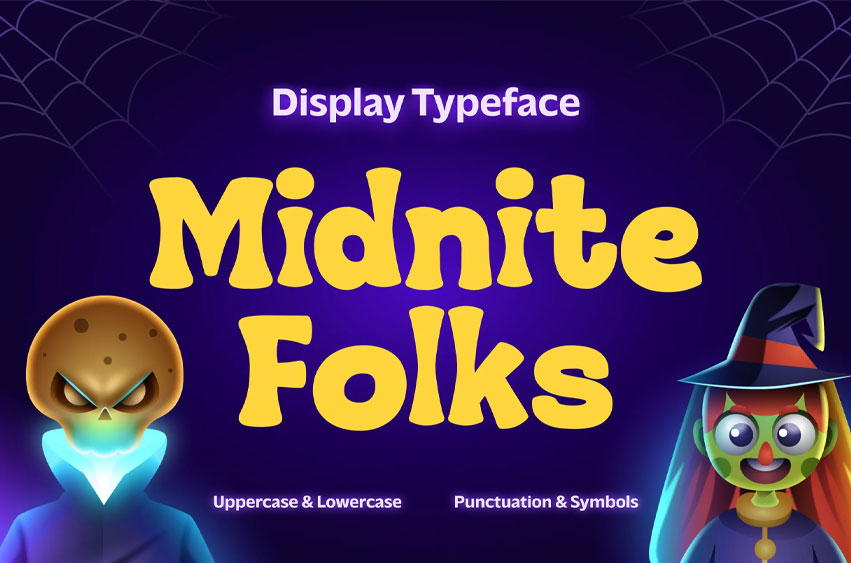
Midnite Folks Font
Midnite Folks Font is a playful bold display font with rounded shapes and a spooky-friendly personality. Perfect for Halloween designs, kids projects, posters, branding, stickers, and social media graphics.
Its soft curves and bold weight make headlines fun, readable, and eye-catching across digital and print designs.